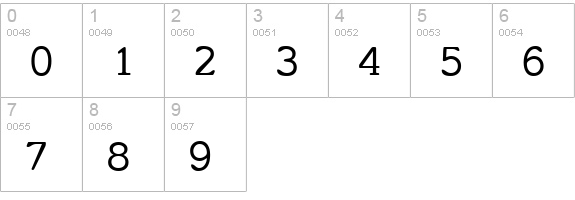
I831-Slab-Regular Font Details
I831-Slab-Regular is the standard, neutral variant in the I831 typeface family \xE2\x80\x94 well suited to general body text, paragraphs, and standard typographic work.
I831-Slab-Regular is a modern and versatile slab serif font that brings a touch of sophistication to any design project. With its clean lines and bold presence, this font is perfect for headlines, logos, posters, and more. The sturdy yet elegant letterforms of I831-Slab-Regular make it suitable for both digital and print applications. What sets I831-Slab-Regular apart is that it is not only stylish and functional, but also free for anyone to use. This means that designers and creatives can access this high-quality font without any cost restrictions, making it a valuable addition to their typographic toolkit. For those interested in adding I831-Slab-Regular to their font collection, it is available for free download at FontsMarket.com. Simply visit the website and enjoy the convenience of acquiring this exceptional font for your creative projects. With I831-Slab-Regular, you can elevate your designs with a touch of modern elegance, all at no cost to you.